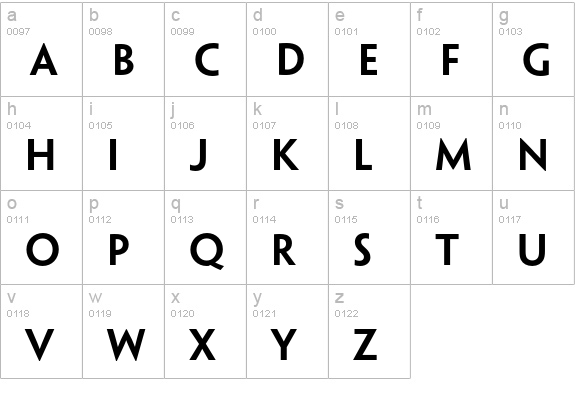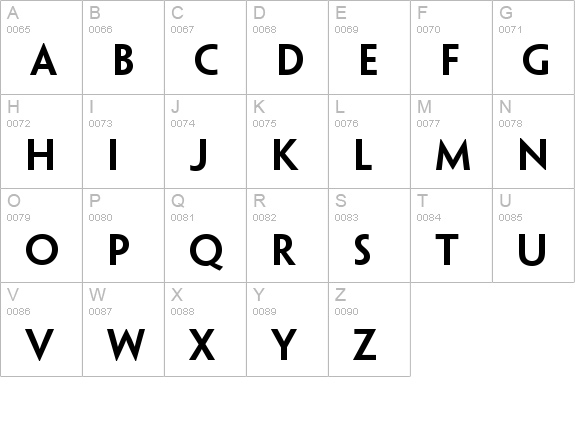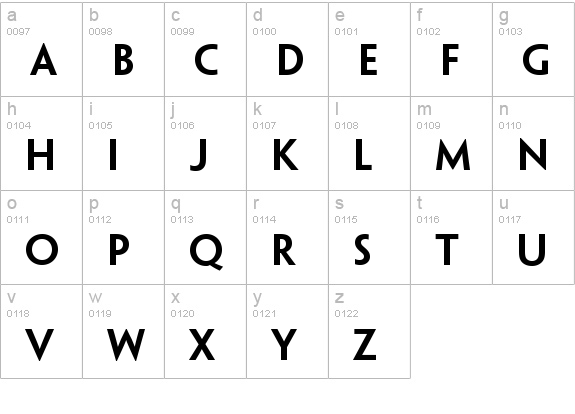
Penumbra Sans Std Semibold is a sub-bold, structured variant in the Penumbra typeface family \xE2\x80\x94 well suited to sub-headlines and emphasised passages.
Penumbra Sans Std Semibold is a captivating and versatile font that is sure to make a lasting impression. With its clean lines and bold presence, this font exudes confidence and modernity. It strikes the perfect balance between professionalism and creativity, making it suitable for a wide range of design projects. The unique character of Penumbra Sans Std Semibold lies in its distinctive letterforms, which are expertly crafted to offer legibility and style. The semi-bold weight gives this font a strong and commanding presence, while maintaining a sense of elegance and sophistication. Whether you're designing a sleek logo, creating captivating headlines, or crafting engaging marketing materials, Penumbra Sans Std Semibold is the perfect choice to grab attention and leave a lasting impact. Its versatility allows it to seamlessly adapt to different design styles and applications, making it a valuable asset in any designer's toolkit. And the best part? Penumbra Sans Std Semibold is available for free download at FontsMarket.com. This means that you can easily access and utilize this incredible font without breaking the bank. With just a few clicks, you can enhance your designs and take them to the next level, all while staying within your budget. So, why wait? Discover the power of Penumbra Sans Std Semibold today and unleash your creativity with this exceptional font. Download it for free at FontsMarket.com and elevate your designs to new heights.